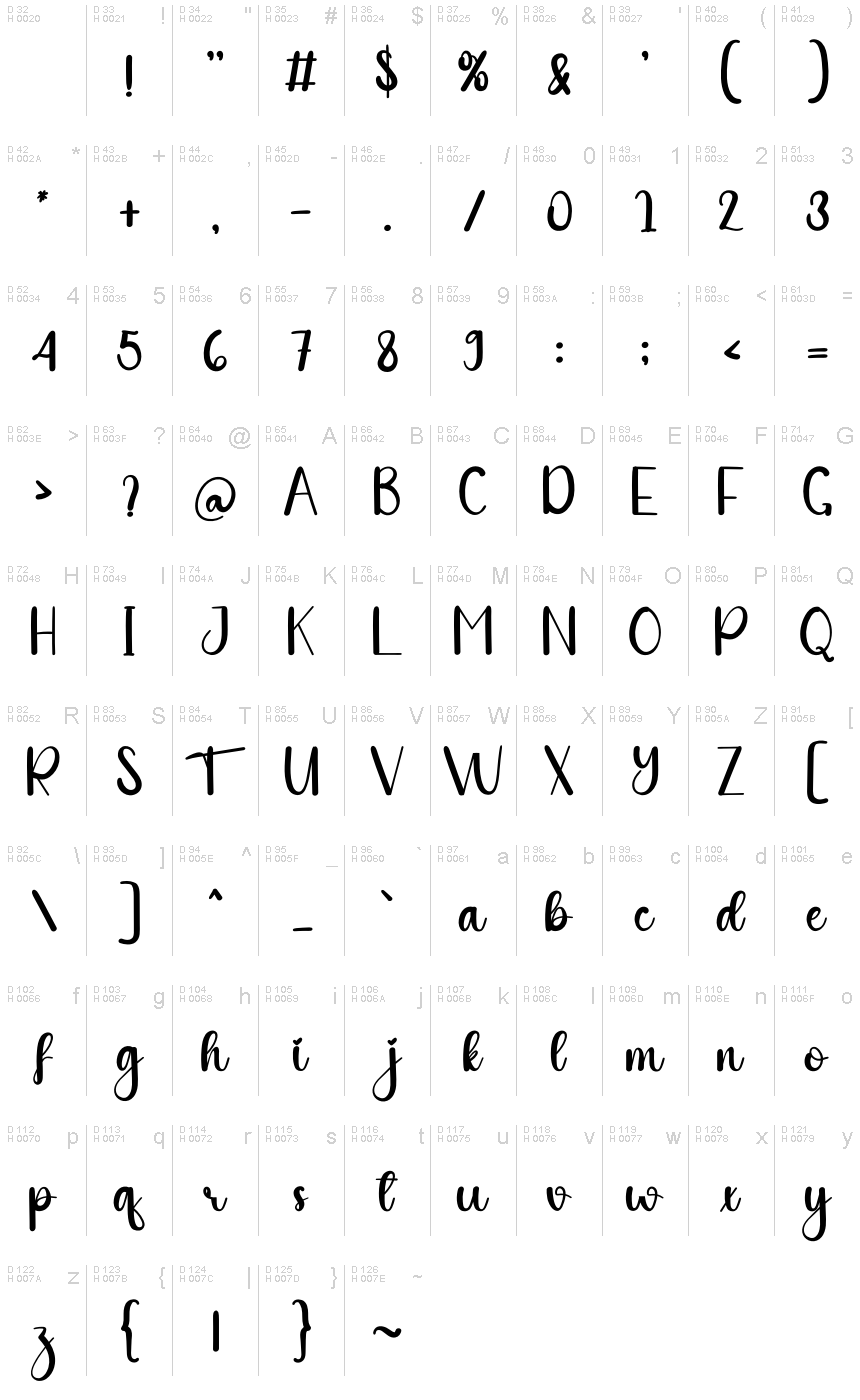
Simple Lemonade
Simple Lemonade is a charming, handwritten font designed by Andi Moz. With its playful, organic strokes and a touch of vintage flair, this font exudes a warmth and approachability that makes it an ideal choice for a variety of design applications.
From rustic, homespun branding to whimsical event invitations, "Simple Lemonade" effortlessly captures a sense of casual elegance and handcrafted authenticity. Its versatility lends itself well to projects that seek to convey a personal, handmade feel, making it a valuable asset in the creative toolbox of designers, typographers, and anyone seeking to add a distinctive touch to their visual communications.